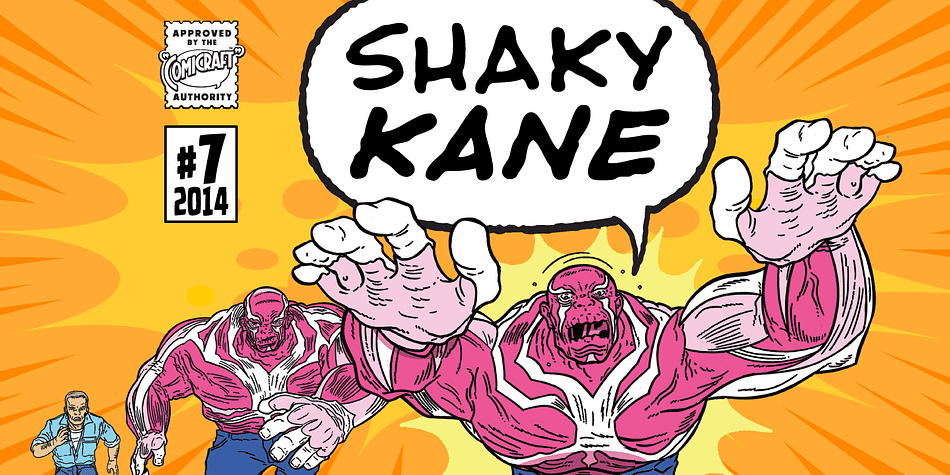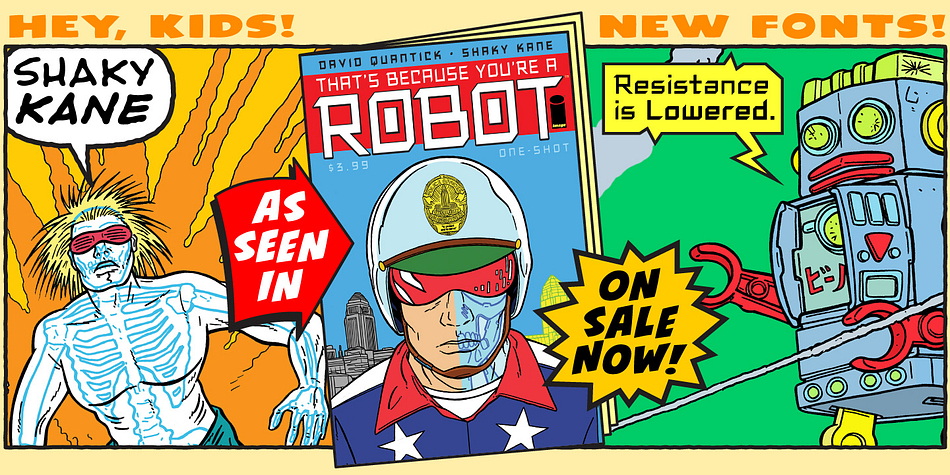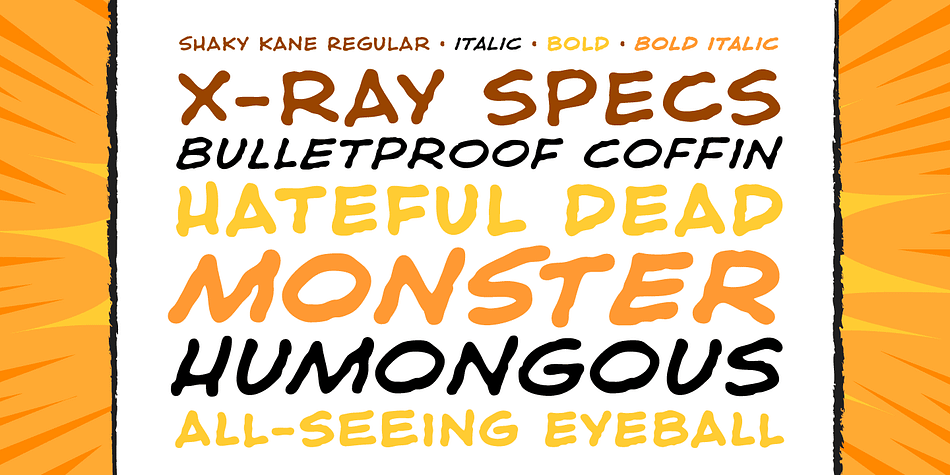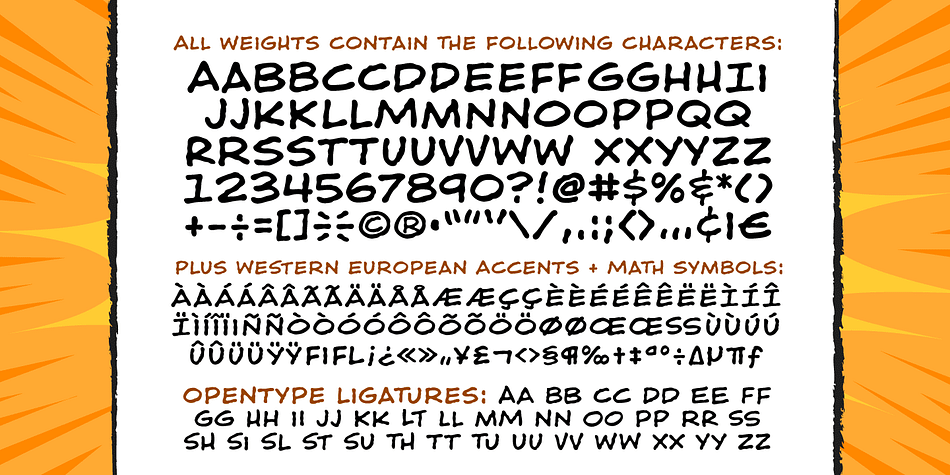
Designed by John Roshell and Shaky Kane, Shaky Kane is a comic and hand display font family. This typeface has four styles and was published by Comicraft.
He sees you! He can see everything YOU do! He wears X-Ray Spex! He glows in the dark! Top Pop Cult Comic Artist Shaky Kane pushes at the limits of taste, dragging a scalpel down the veil of your illusions to make you see the world as it really is, as HE sees it.
You’ve wondered at his work in the pages of ELEPHANTMEN! THE BULLETPROOF COFFIN! CAP’N DINOSAUR! THAT’S BECAUSE YOU’RE A ROBOT! MONSTER TRUCK and DEADLINE! You’ve worn the HATEFUL DEAD t-shirt and drawn blood with the SHAKY KANE FAN CLUB pins. Now Shaky Kane isn’t just a disaffected punk rock way of looking at the world, it’s a font too. A little Shaky, a little Stirred, best served with a purple eyeball spiked on a cocktail stick.
Four fonts (Regular, Italic, Bold & Bold Italic) with alternate uppercase characters. Includes Western European international characters.